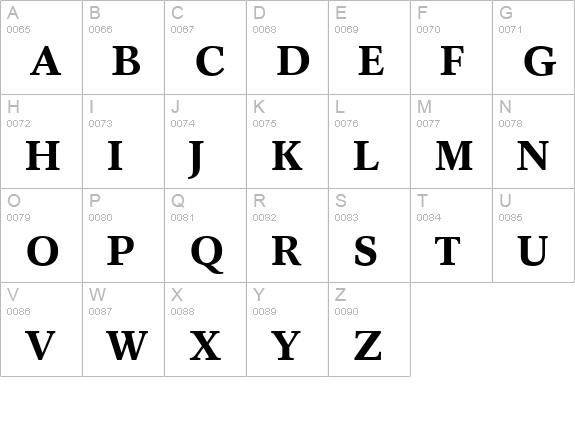
12 Concorde** Bold 07319 Font Details
12 Concorde** Bold 07319 is a strong, high-contrast variant in the 12 typeface family \xE2\x80\x94 well suited to headlines, attention-grabbing titles, and strong calls-to-action.
Introducing the exquisite and sophisticated 12 Concorde Bold 07319 font, a timeless typeface that exudes elegance and professionalism. With its bold and commanding presence, this font is perfect for making a statement in your designs. The sleek lines and sharp edges of the characters give a modern and stylish touch to any project. What's even better is that this stunning font is available for free download at FontsMarket.com! Whether you're working on a branding project, designing a poster, or creating eye-catching graphics for social media, 12 Concorde Bold 07319 is sure to elevate your work to the next level. Don't miss out on the opportunity to add this versatile and impressive font to your collection today. Download it for free and start creating stunning designs with ease.